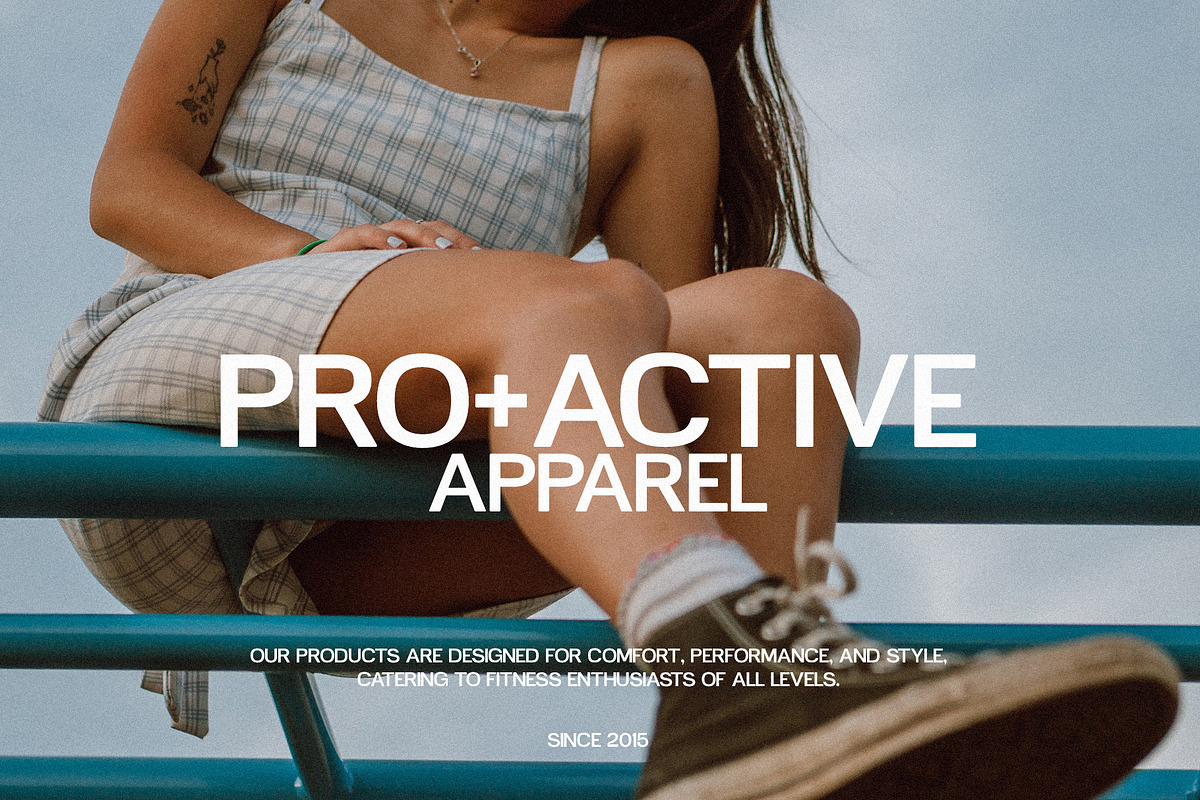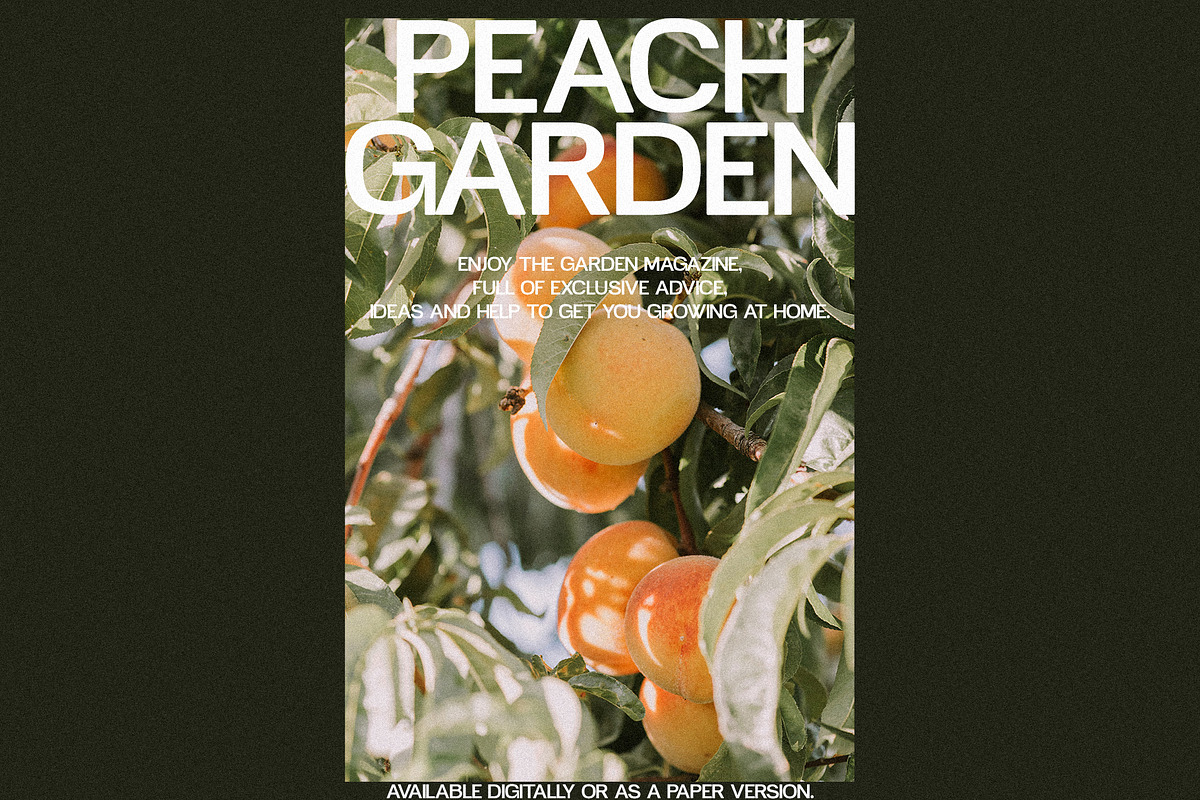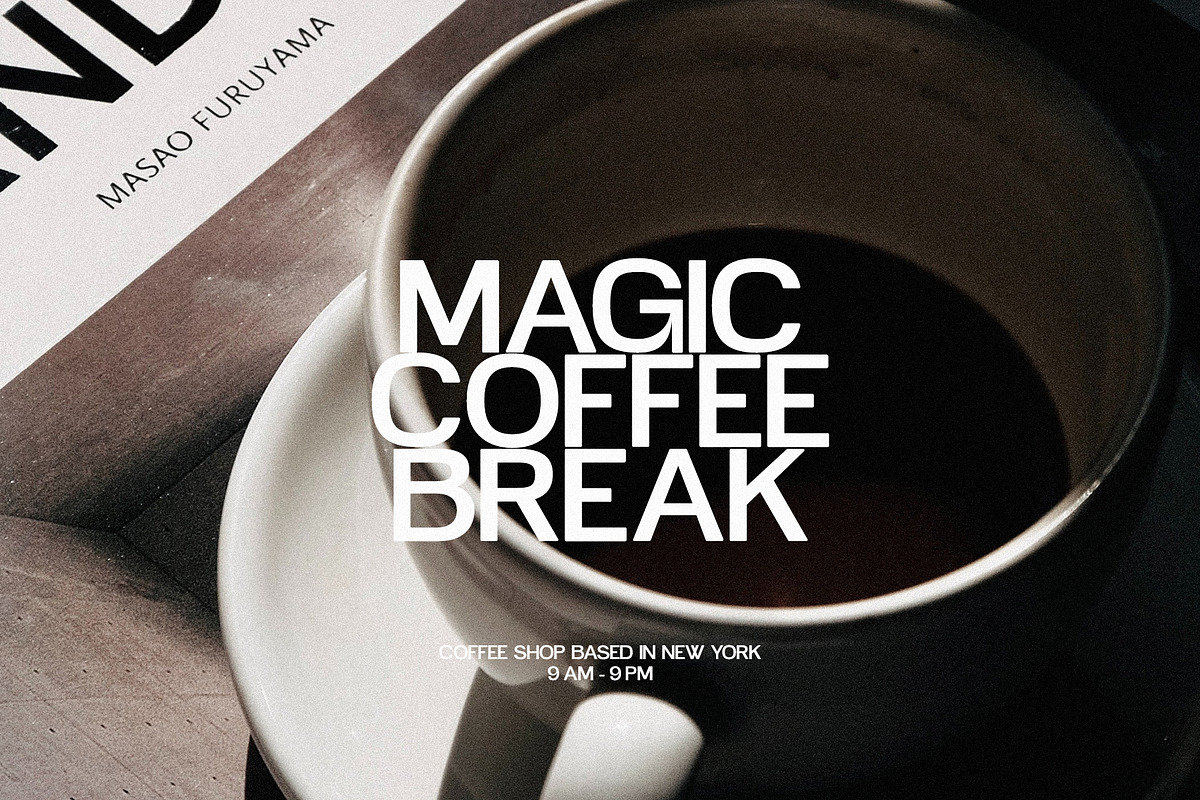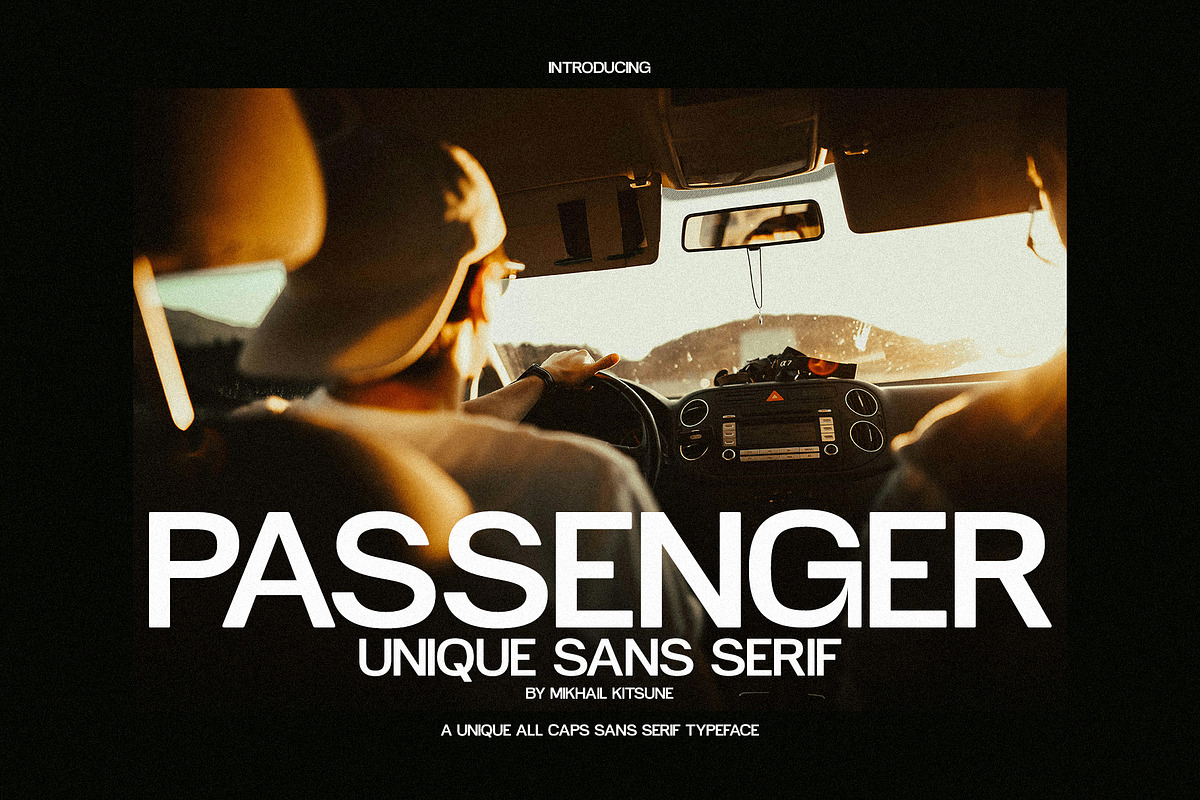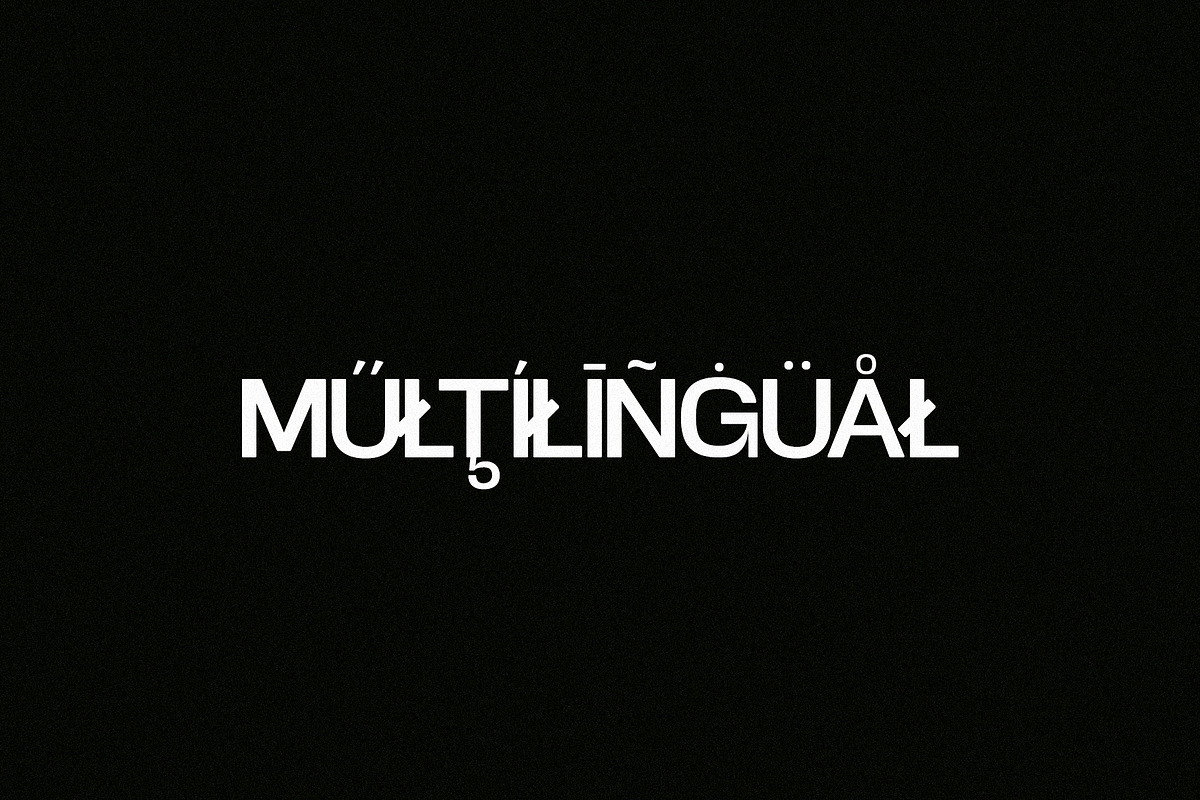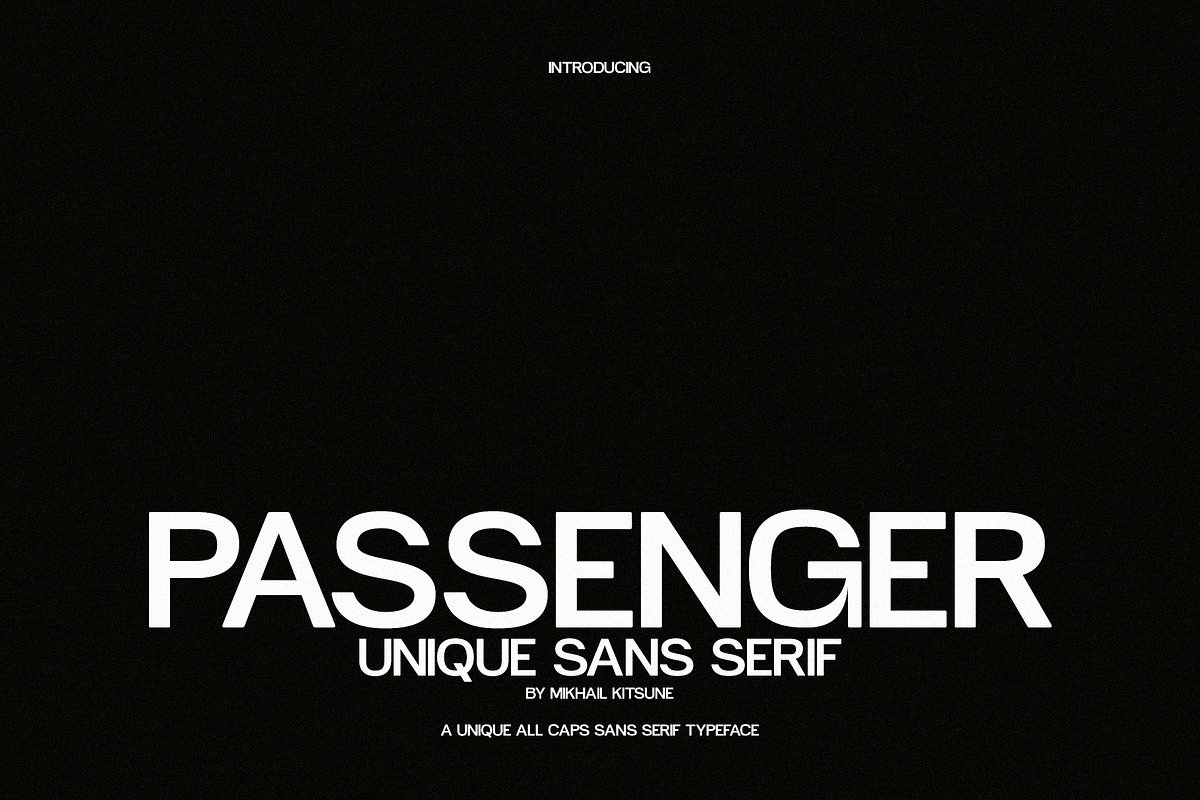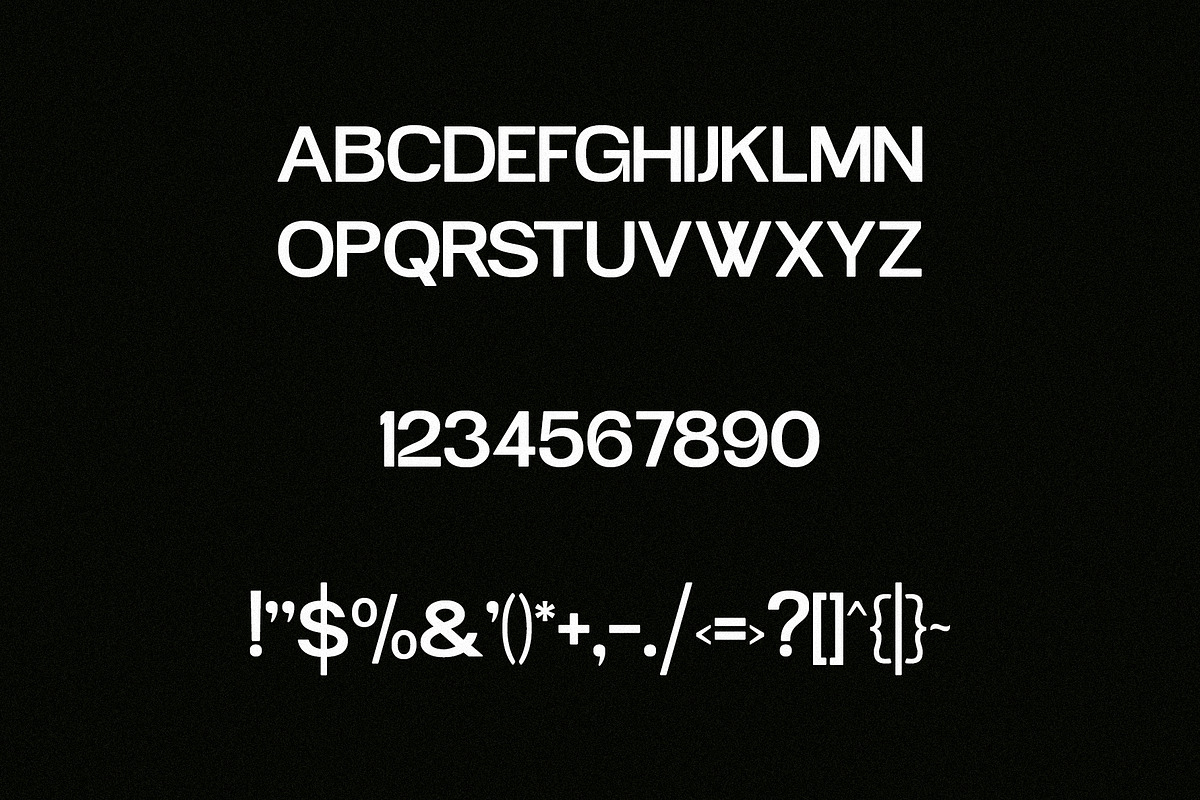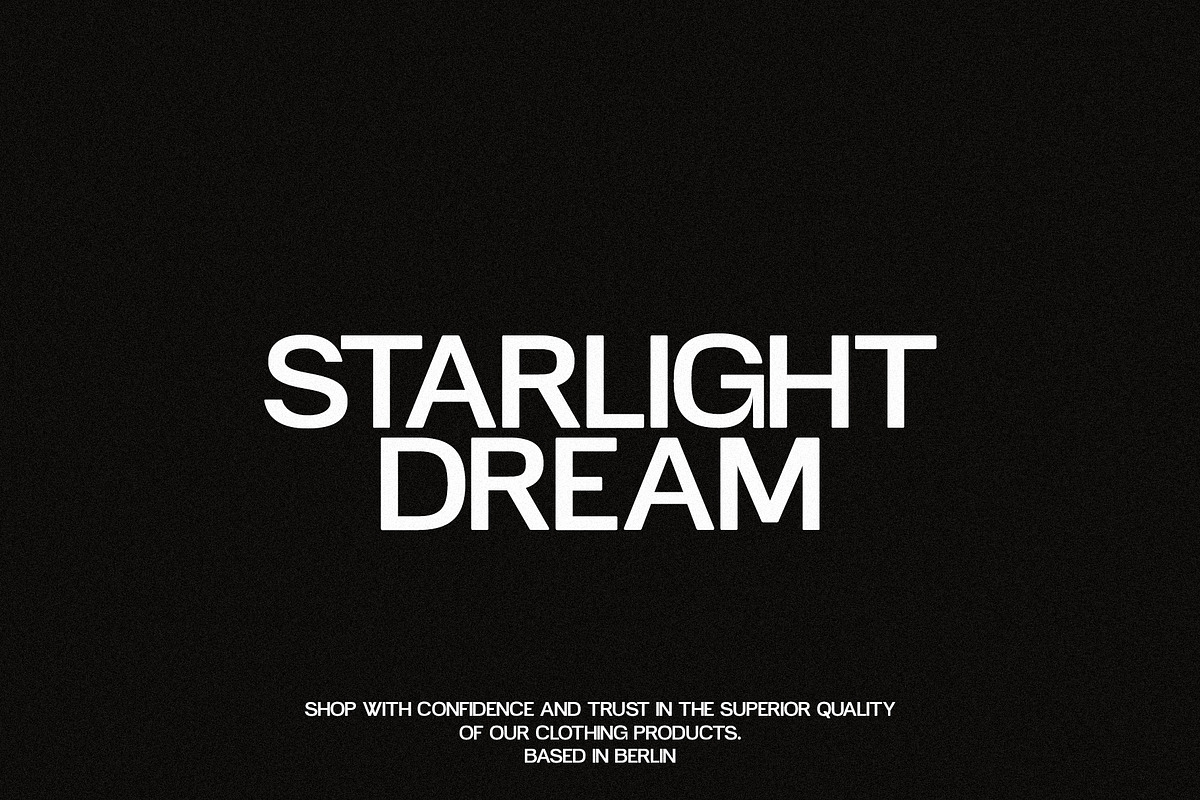
Passenger - Unique Sans Serif
Passenger is a modern and sleek sans serif typeface that offers a unique and contemporary look. With clean lines and a minimalist design, Passenger is perfect for a wide range of design projects, from branding to editorial layouts. Its versatility and readability make it a popular choice for designers looking for a stylish and professional font option.
Passenger includes:
- Letters
- Symbols & Punctuation
- More than 300 glyphs